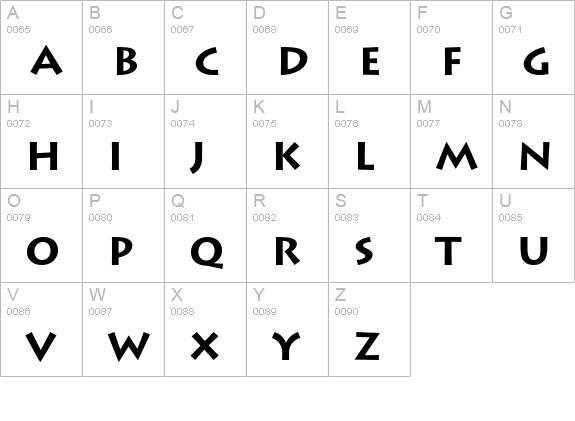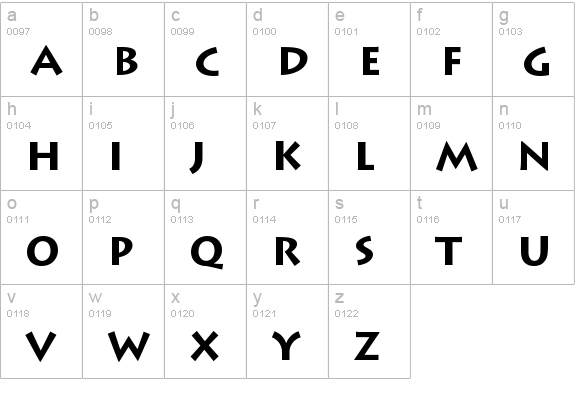
Austere SSi Bold Font Details
Austere SSi Bold is a strong, high-contrast variant in the Austere typeface family \xE2\x80\x94 well suited to headlines, attention-grabbing titles, and strong calls-to-action.
Austere SSi Bold font is a stunning display typeface that exudes elegance and sophistication. With its clean lines and sharp edges, this bold font commands attention and adds a touch of modernity to any design project. Perfect for headlines, logos, and branding materials, Austere SSi Bold font makes a bold statement with its strong presence on the page. Best of all, Austere SSi Bold font is available for free download at FontsMarket.com. This means you can easily elevate your designs without breaking the bank. Don't miss out on the opportunity to add this striking font to your collection and take your projects to the next level. Download Austere SSi Bold font today and let your creativity shine!